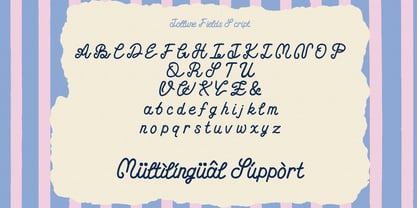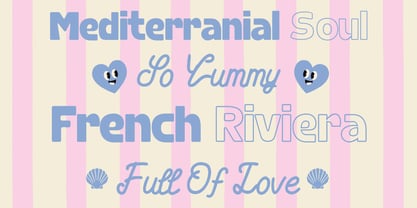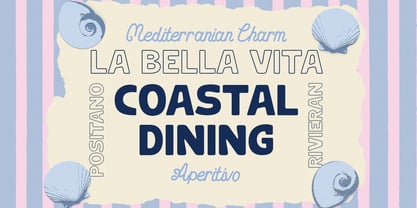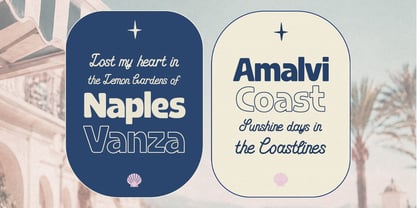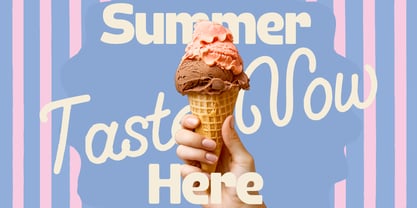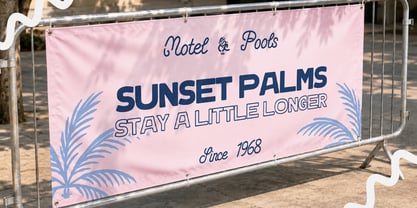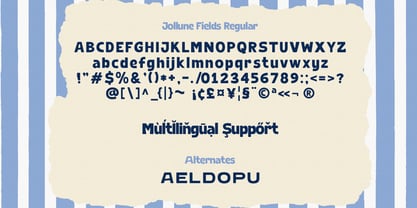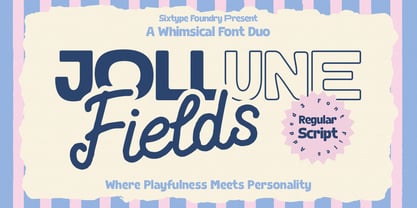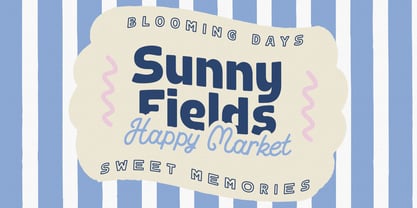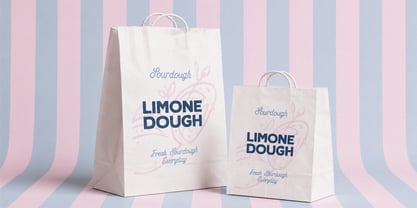
Jollune Fields
Jollune Fields is a delightful font duo that seamlessly blends a bold retro sans serif with a smooth handwritten script, offering a unique combination of playful charm and vintage-inspired personality. With its soft curves and rounded forms, this versatile pair exudes a cheerful aesthetic, making it ideal for crafting warm, inviting, and memorable designs. Perfect for a variety of applications such as branding, packaging, café identities, food labels, children's products, social media graphics, posters, apparel, and lifestyle projects, Jollune Fields infuses a fresh and joyful touch into every composition. Utilize the bold sans for striking headlines and the flowing script for expressive accents, ensuring your designs are rich in character, nostalgia, and modern appeal.